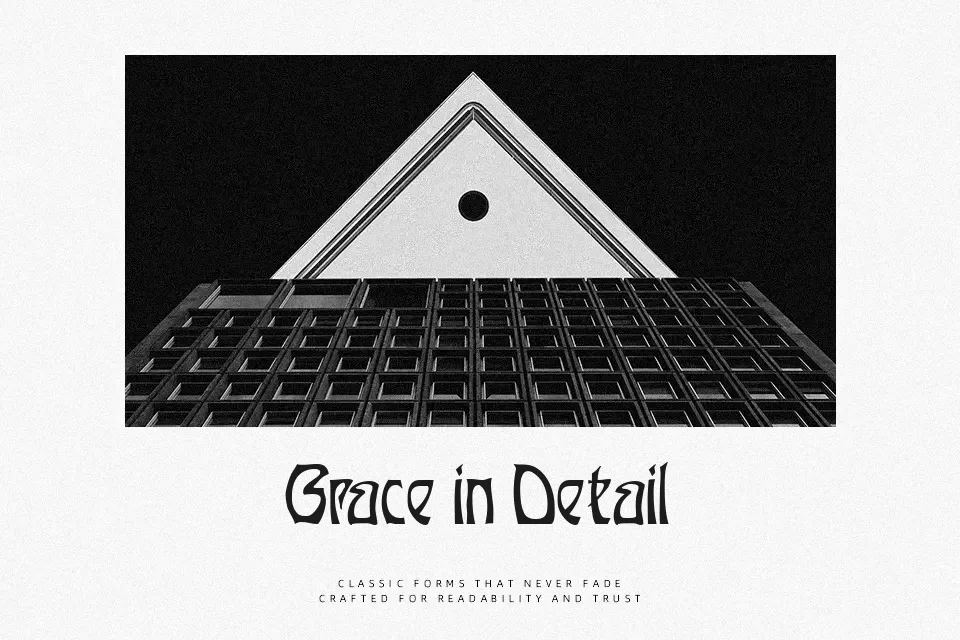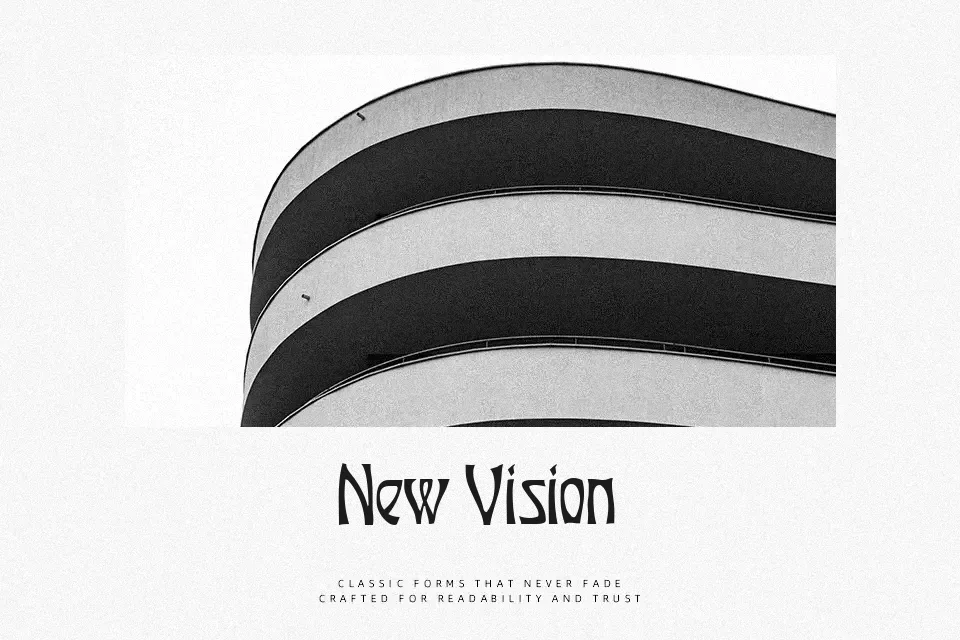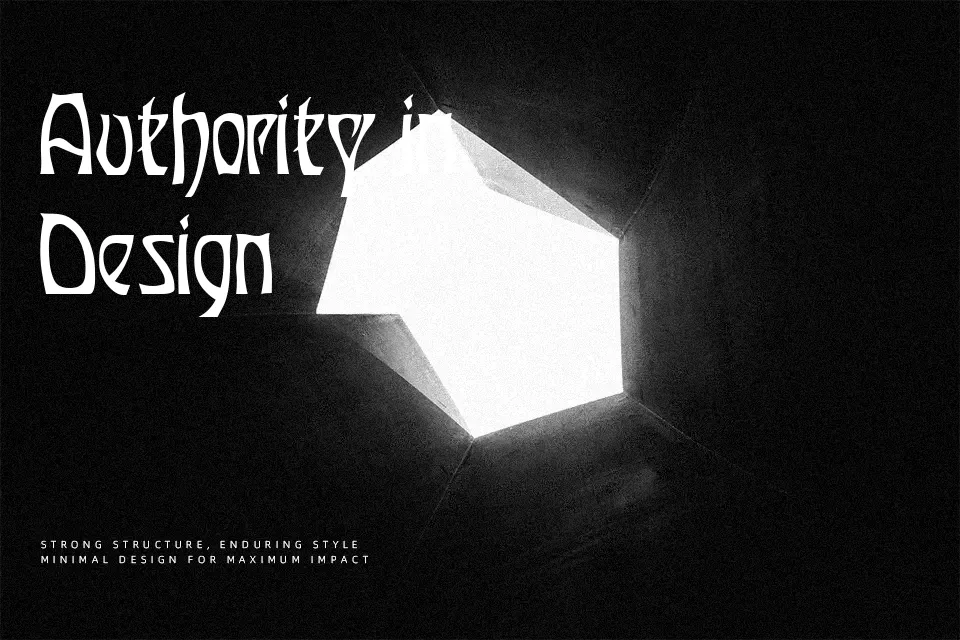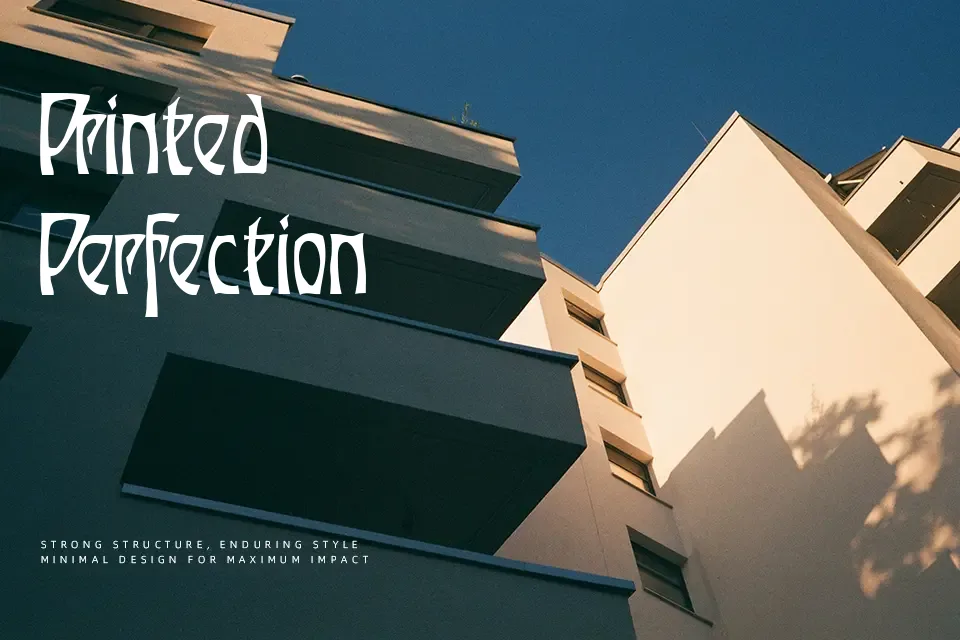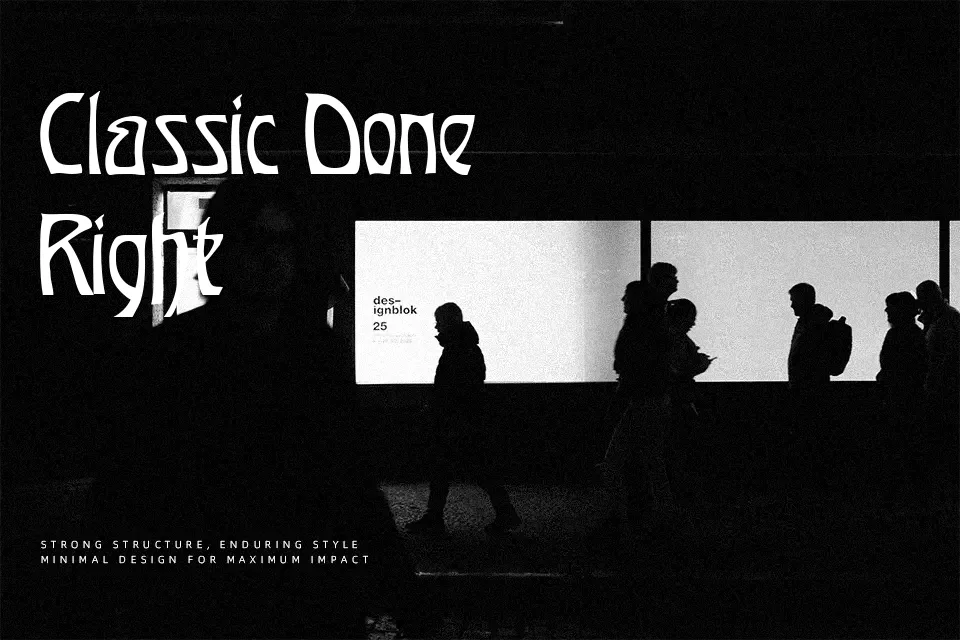
Ober Tuerkheim Font
Designed by Peter Wiegel
Ober Tuerkheim Font works best as a display typeface, using condensed serif forms, sharp angles, and unevenly elaborate details to create a historic printed appearance. The strokes show noticeable contrast, while the tall proportions and close visual rhythm give uppercase settings a firm, vertical presence. Its letterforms remain most legible in short words, headlines, and large labels, where the spacing helps individual shapes stay recognizable. Numerals and punctuation follow the same decorative direction. It is a practical choice for period-style graphics, but its intricate construction becomes less comfortable in small sizes or continuous reading.
Best For: vintage poster titles,heritage product packaging,book cover headlines,themed restaurant signage
Perfect for headline, packaging, and poster, with a artistic and decorative style.